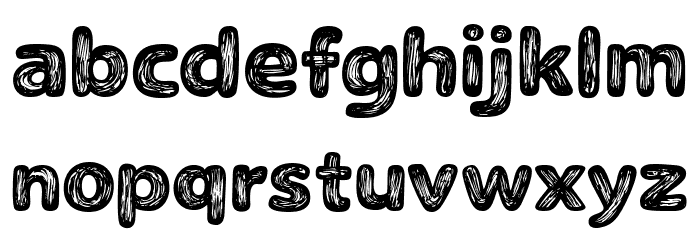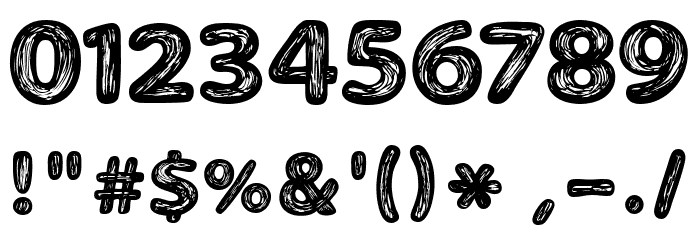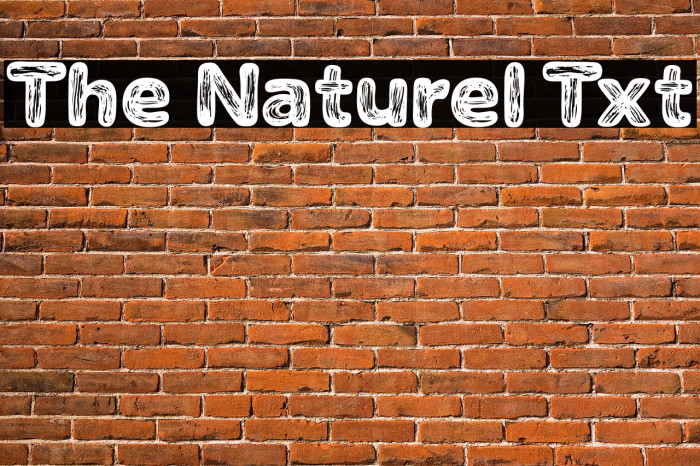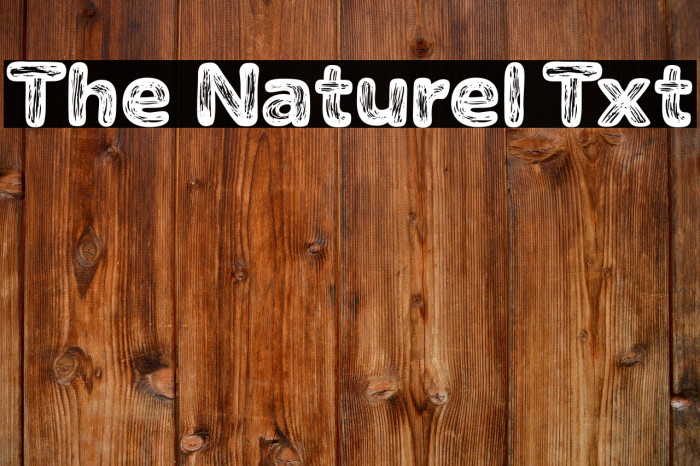
The Naturel Txt Font
This font features a playful and textured design, with each character appearing as if it has been hand-drawn with a brush or marker. The strokes are uneven, giving it a lively and dynamic appearance. The letters are bold and rounded, with a slightly irregular outline that adds to its whimsical charm. This style is reminiscent of natural, organic forms, making it ideal for projects that aim to convey a sense of creativity and fun. The font includes a full set of uppercase and lowercase letters, numbers, and a variety of special characters, all maintaining the same textured, hand-crafted look.
A playful, textured font with a hand-drawn, organic feel.
- Proposed Projects: Ideal for children's book covers, playful branding, creative posters, and artistic projects.